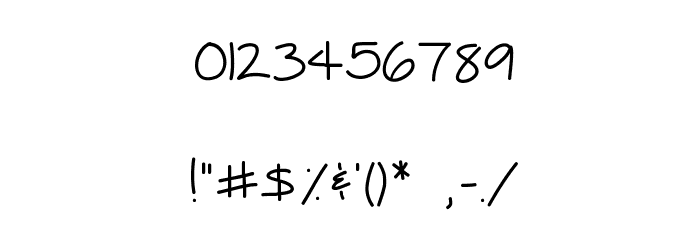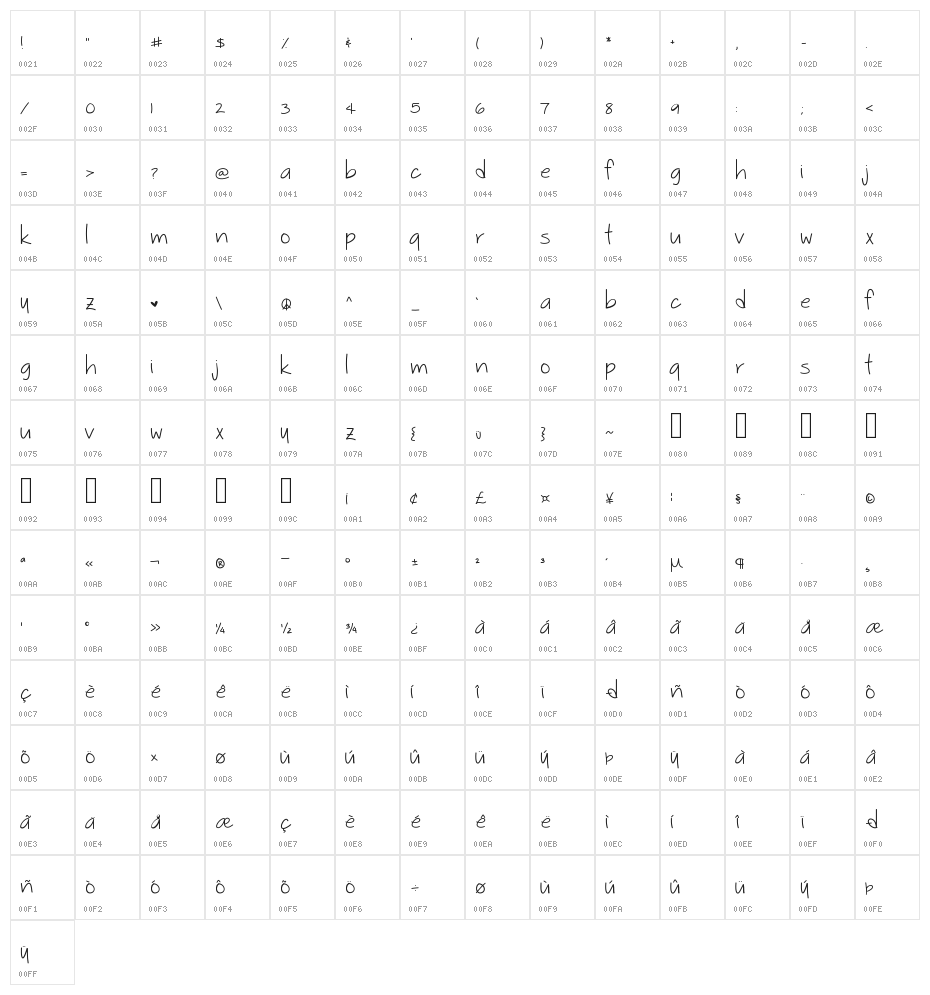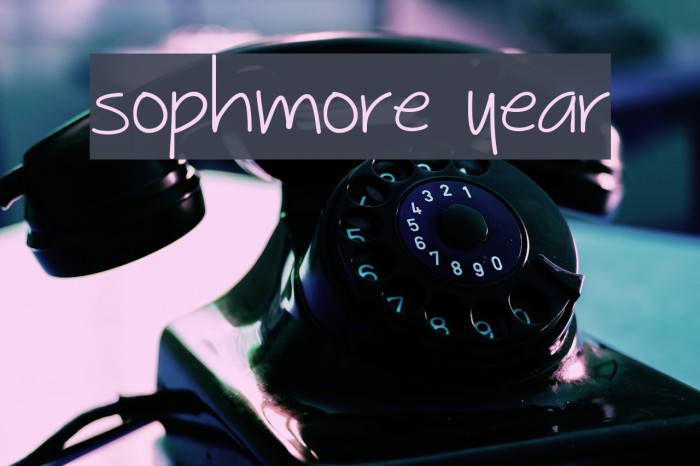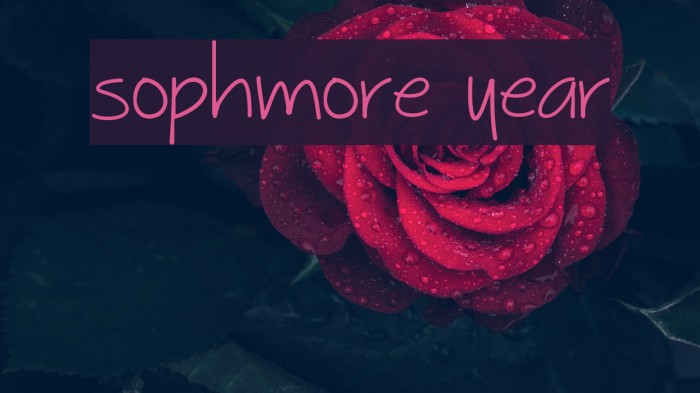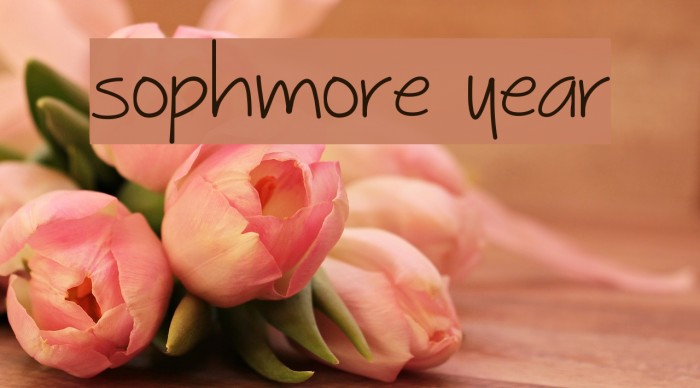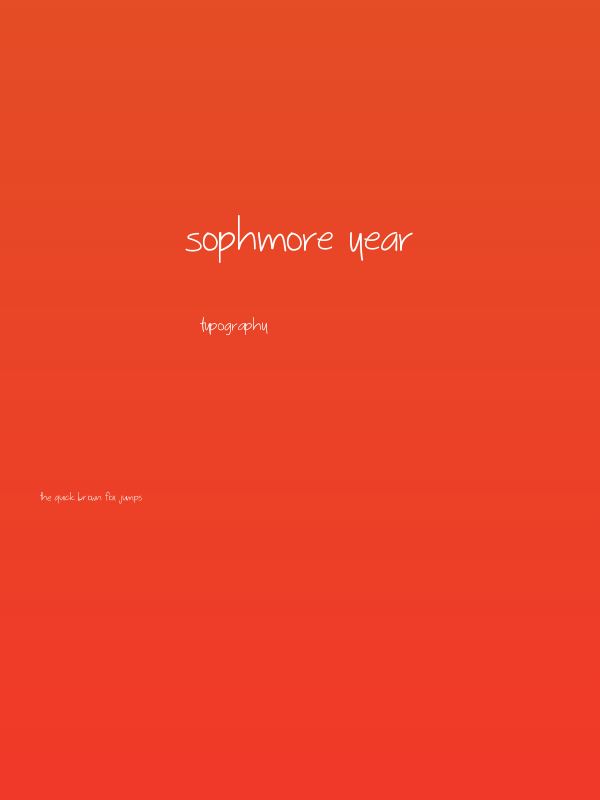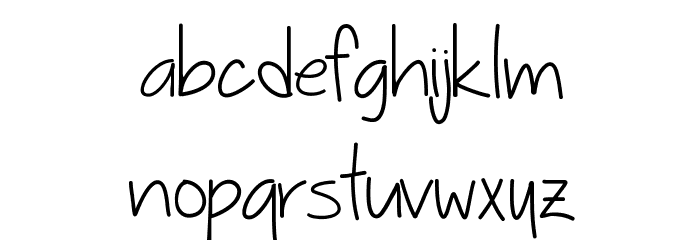
Sophmore Year Font
Sophmore Year Description
This font features a playful and casual handwritten style, characterized by smooth, flowing curves and a slightly irregular baseline that adds a touch of whimsy. The letters are well-spaced, ensuring readability while maintaining a relaxed appearance. The lowercase letters have a consistent height, while the uppercase letters are slightly taller, providing a balanced look. The numerals and special characters are designed to match the overall style, with rounded edges and a friendly feel. This font is ideal for projects that require a personal touch, such as invitations, greeting cards, or children's books.
Overall StyleCasual, Playful
Use CaseHeadlines, Informal text, Personal projects
Proposed ProjectsIdeal for invitations, greeting cards, children's books, and personal branding.